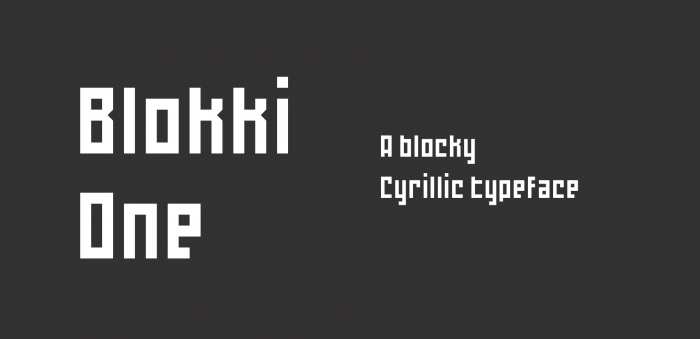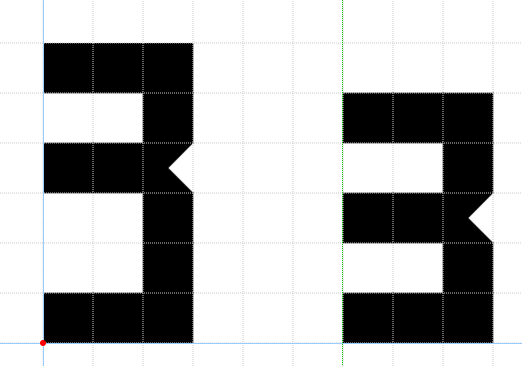
• A blocky Cyrillic typeface. SIL Open Font License, free for personal and commercial use.
Added support for Bulgarian and Ukrainian.
Fixed Ukrainian, Bulgarian and slashes.
Fixed spacing and characters @, (, ), [ and ].
The З and the Э look the same, you should fix it.
I was thinking about these designs for capital and lowercase З to help differentiate it from Э.